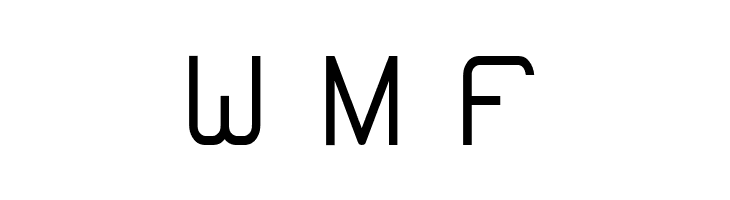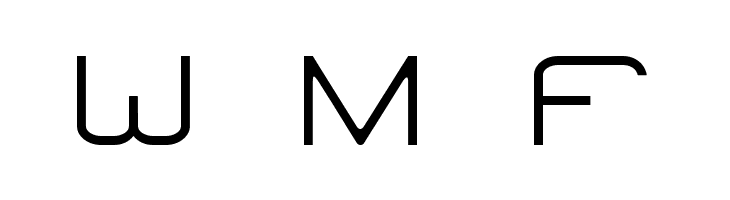
MicroMieps Font
A modern, geometric font with a sleek, futuristic design.
MicroMieps bold Font
A futuristic, geometric font with clean lines and angular shapes.
MicroMieps Phat Font
A modern, geometric font with clean lines and a futuristic style.
MicroMieps Regular Font
A sleek, modern font with geometric lines and a futuristic style.
MicroMieps Diet Font
A modern, geometric font with clean lines and rounded edges.